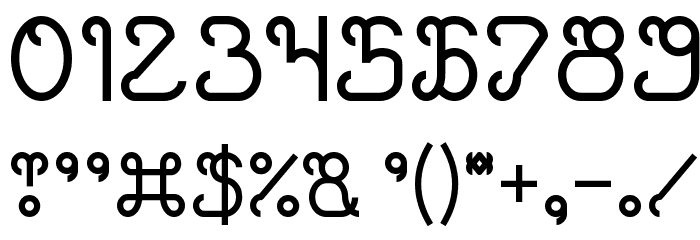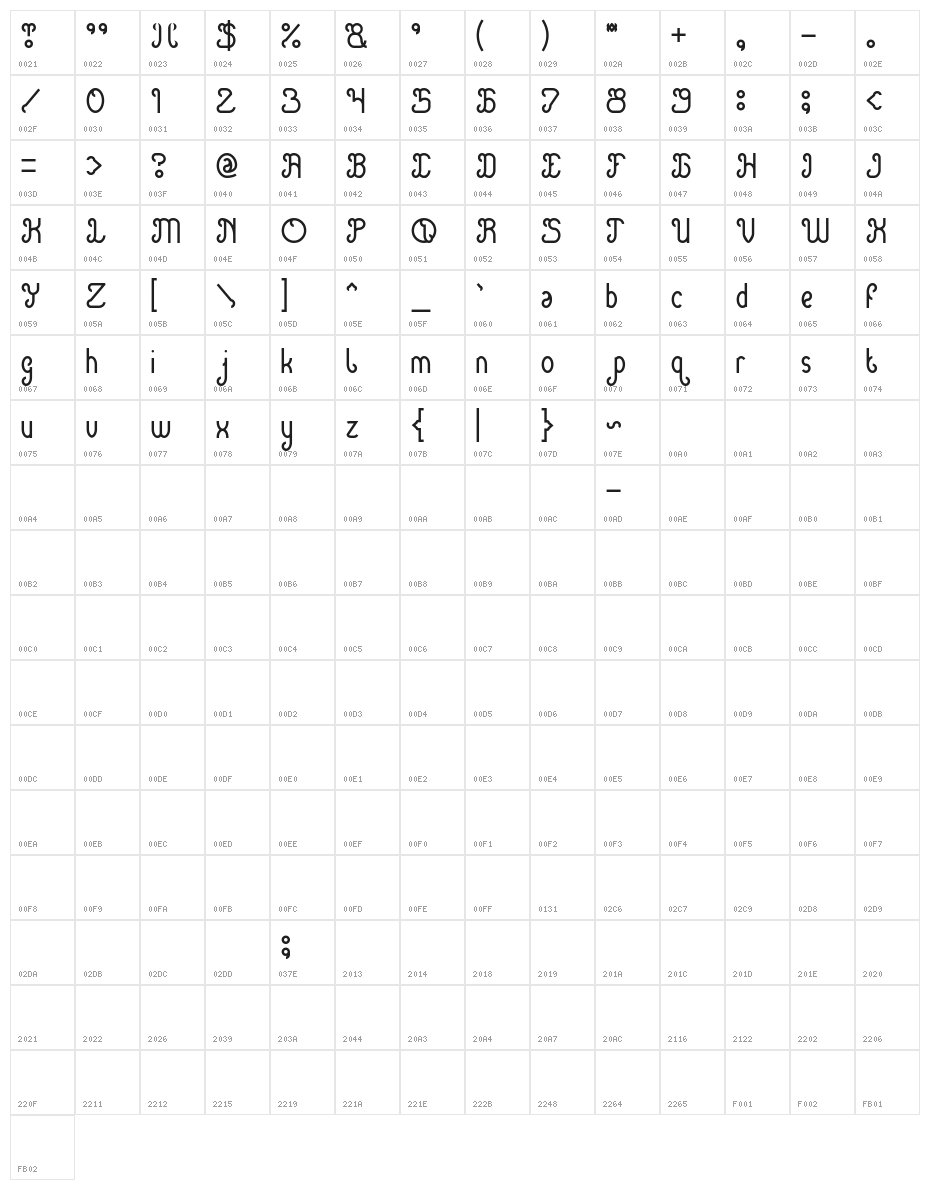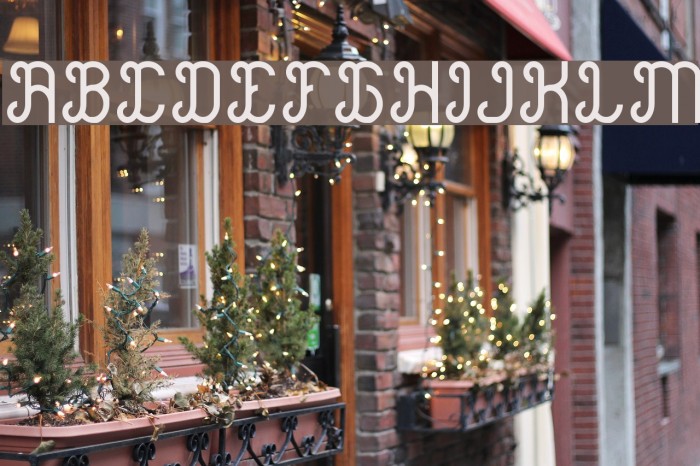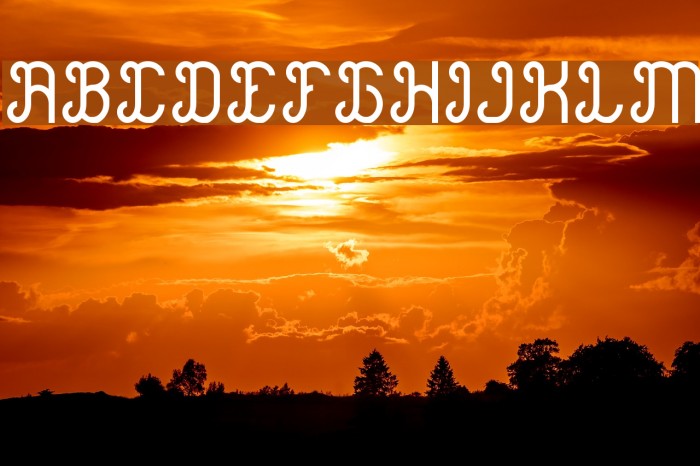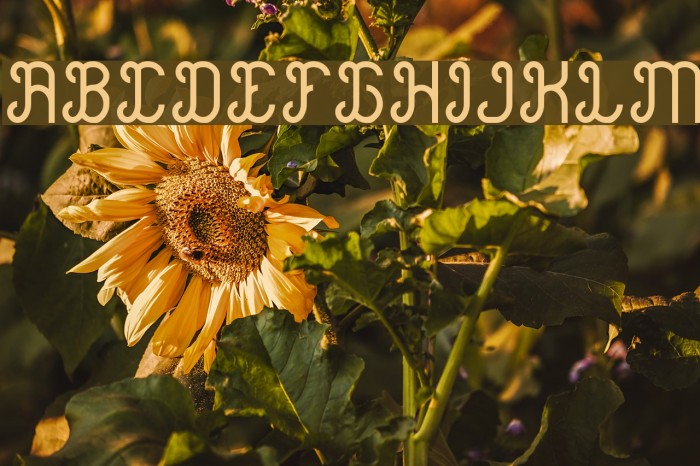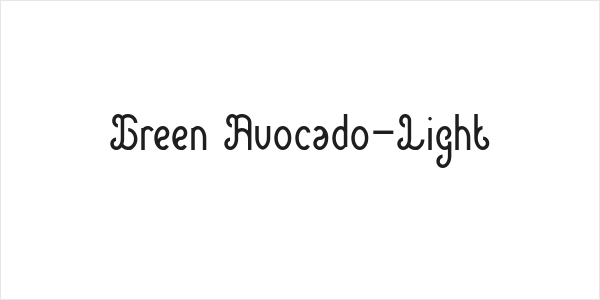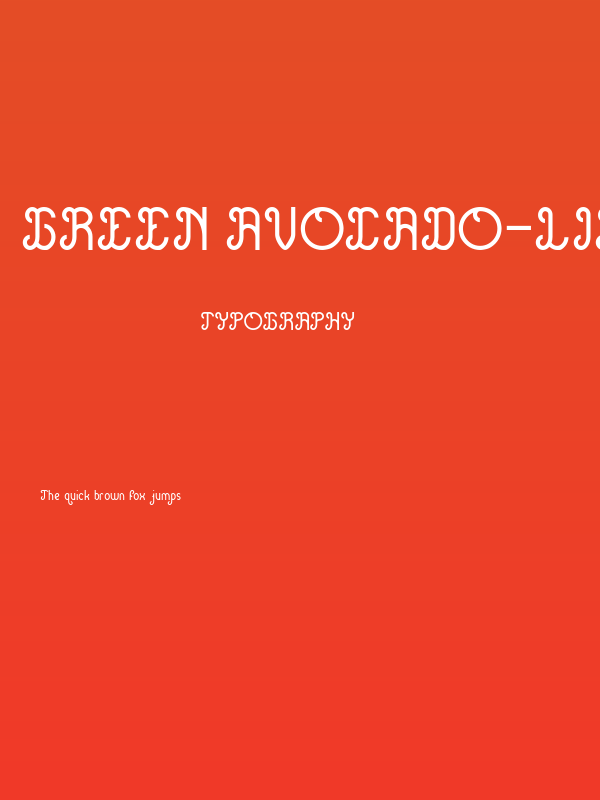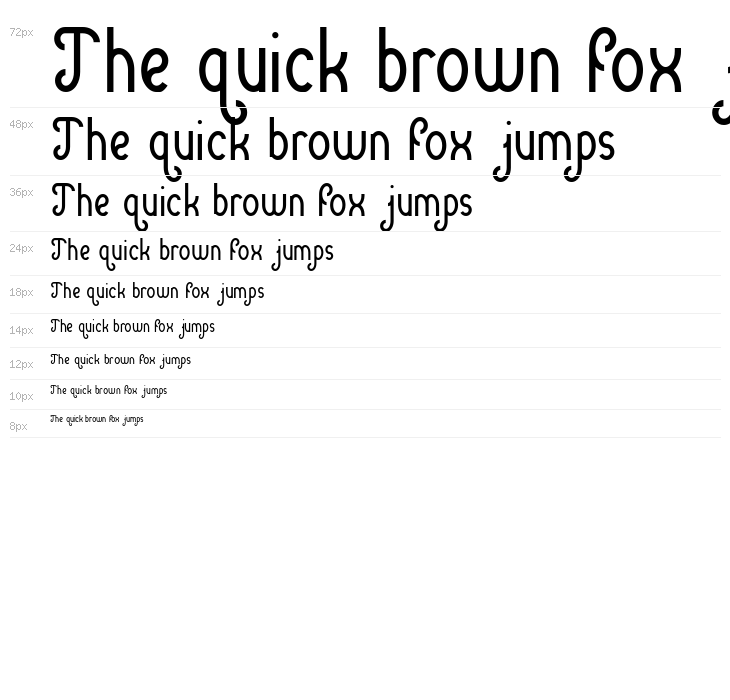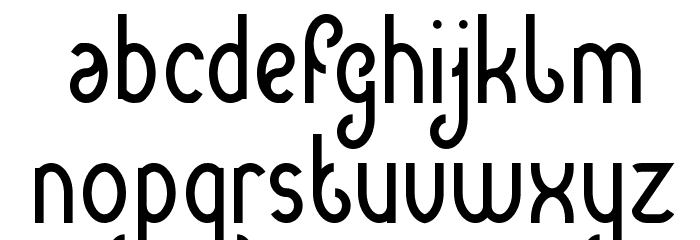
Green Avocado-Light Font
Green Avocado-Light Description
This font features a playful and decorative style with unique, rounded edges and intricate curves. The uppercase letters exhibit a whimsical flair, with loops and swirls that add a touch of elegance and creativity. The lowercase letters maintain a consistent style, with smooth transitions and a slightly condensed form. Numbers and special characters follow the same design principles, ensuring a cohesive look throughout. The overall appearance is both modern and artistic, making it suitable for projects that require a distinctive and eye-catching typeface.